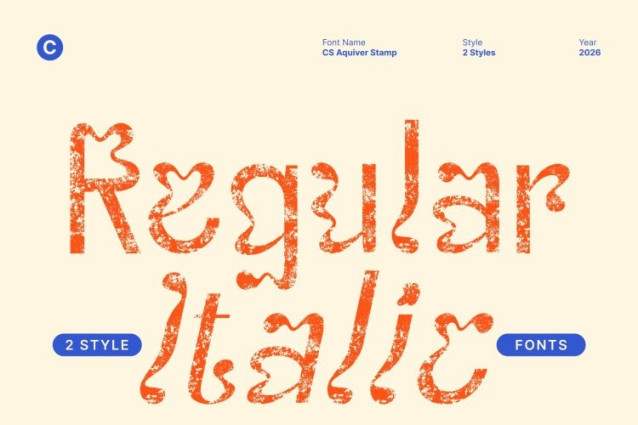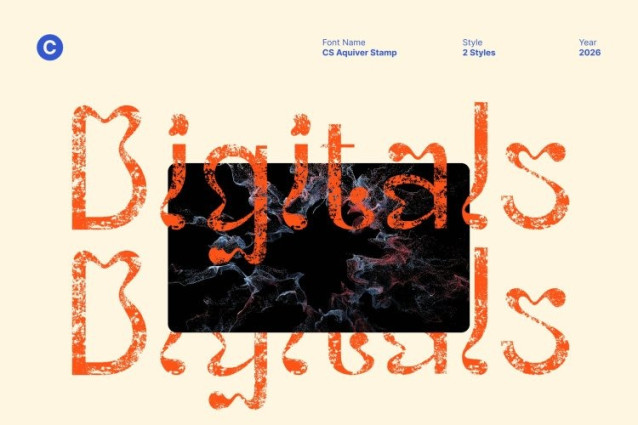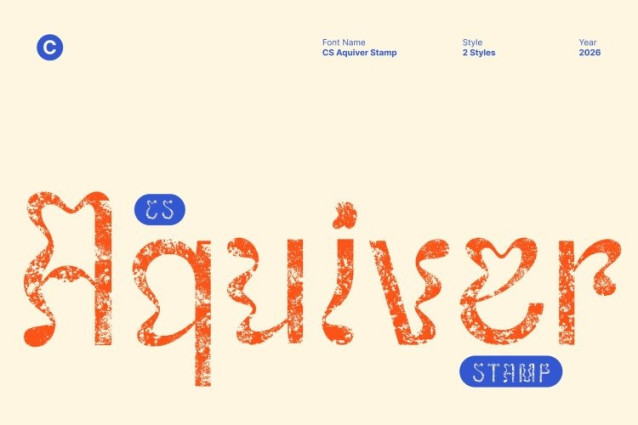
CS Aquiver Stamp Font
CS Aquiver Stamp Font This is a psychedelic display font defined by bold, trippy shapes and expressive distortions. Its swirling curves and fluid letterforms create a dynamic visual rhythm that feels energetic and unconventional. Inspired by psychedelic art and experimental design, the font radiates freedom, movement, and visual excitement.
Artistic Distortion with Experimental Character
The letterforms feature asymmetrical structures and playful exaggeration, giving the font a highly artistic and imaginative personality. Each character feels alive and unpredictable, making ideal for designs that celebrate creativity and break away from rigid typographic rules.
Vintage Stamp Texture with Unique Personality
The stamp effect adds a layer of artistic texture and vintage character to the psychedelic forms. Slight roughness, uneven ink distribution, and distressed details introduce a handmade, old-print feel that contrasts beautifully with the bold, modern psychedelia. This texture enhances depth and uniqueness, making every letter feel tactile and expressive.
Perfect for Creative and Experimental Visuals
This is perfect for music posters, album artwork, experimental graphics, festival branding, and expressive promotional designs. Its fusion of psychedelic energy and vintage stamp texture delivers a powerful visual statement playful, artistic, and unforgettable ensuring your designs stand out with bold originality and creative flair.